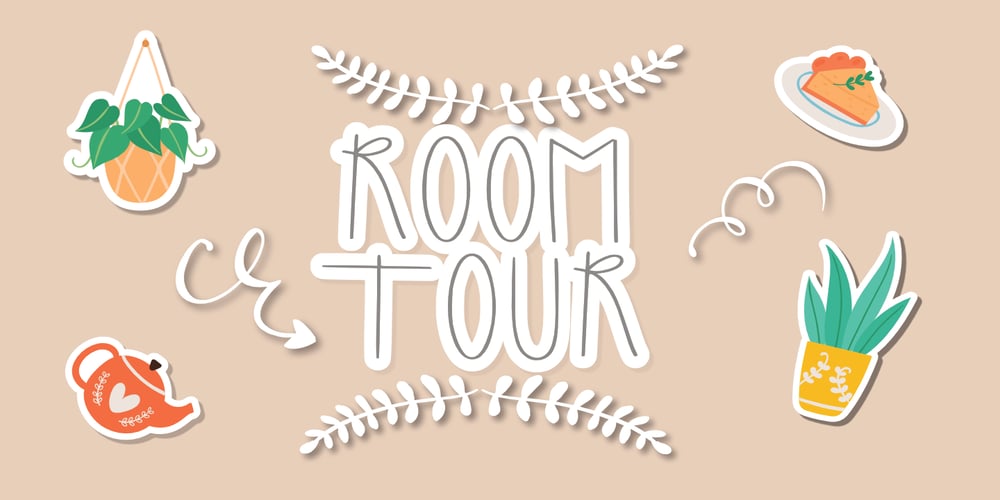
Simple Home
Simple Home font
Simple Home Font Family was designed by Mariyana and published by Goodigital13. Simple Home contains 1 styles and family package options. This font perfectly made to be applied especially in logo, and the other various formal forms such as invitations, labels, logos, magazines, books, greeting / wedding cards, packaging, fashion, make up, stationery, novels, labels or any type of advertising purpose.